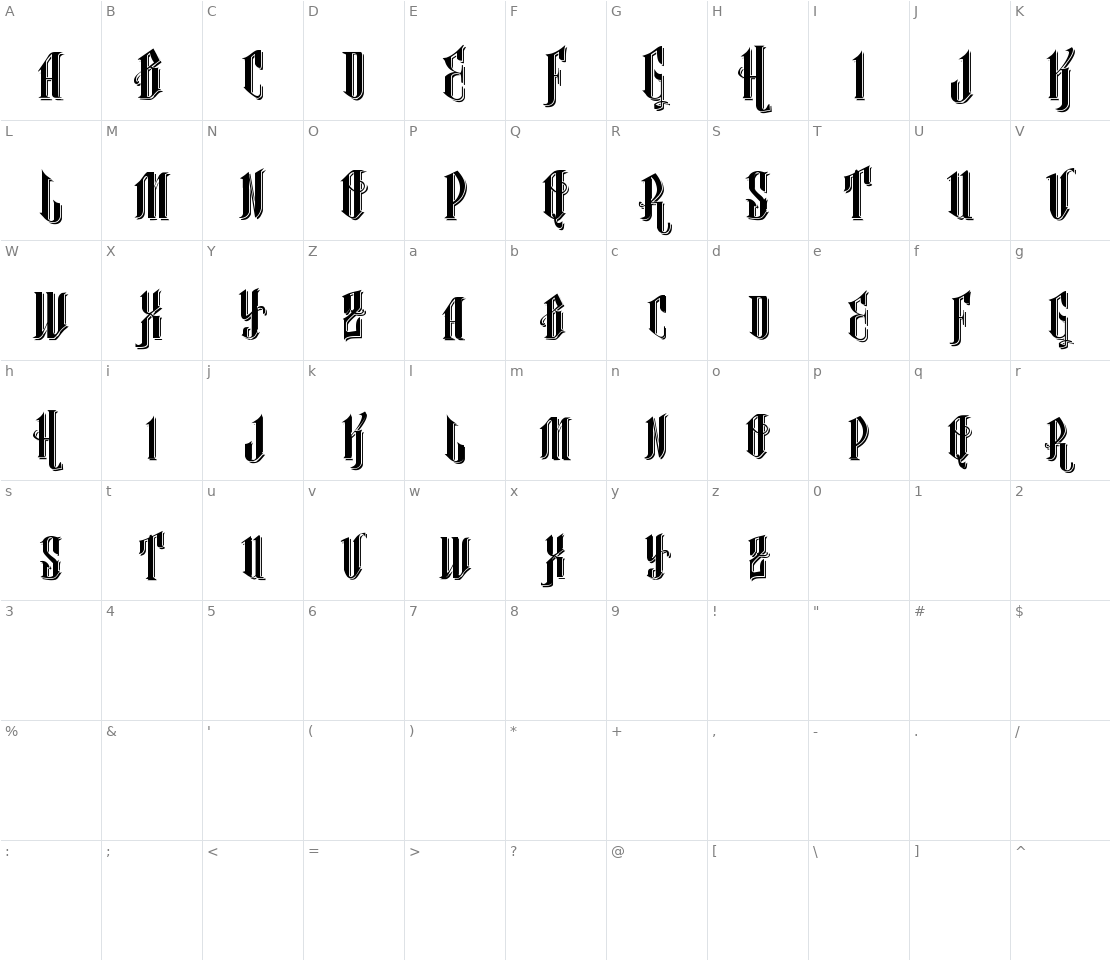
Vtks Classical Hit
Vtks Classical Hit is a condensed blackletter display face from Douglas Vitkauskas with tightly packed, narrow letterforms that carry a heavy medieval darkness. The ornate gothic strokes feel dense and imposing without becoming illegible, giving it a brooding, old-world intensity that works for headlines, album art, tattoo lettering, and anything rooted in dark or historical aesthetics. Keep it big; the decorative detail gets lost at smaller sizes.